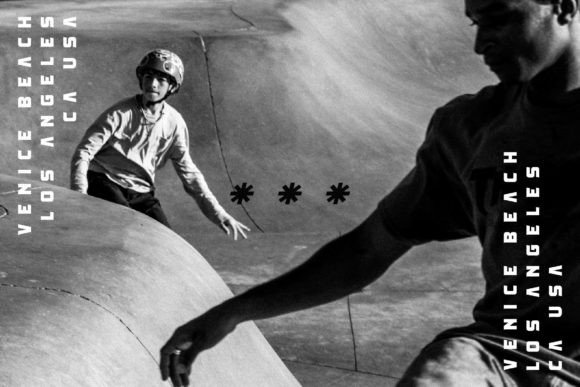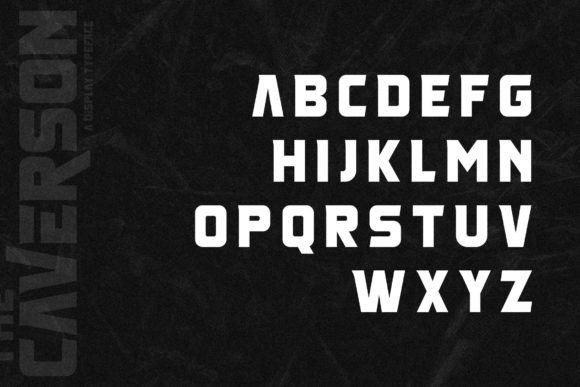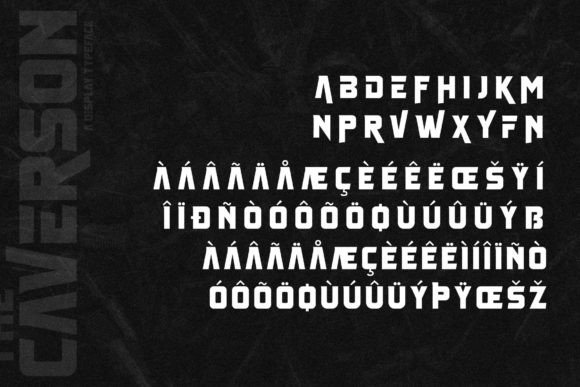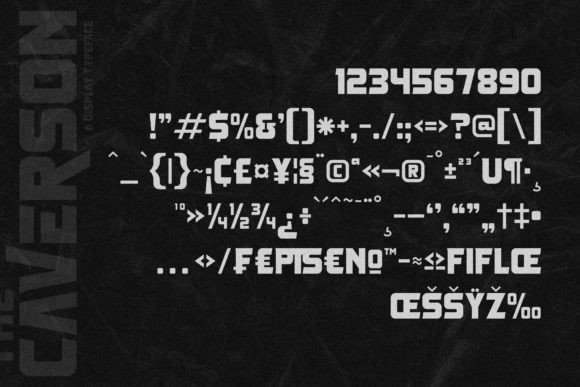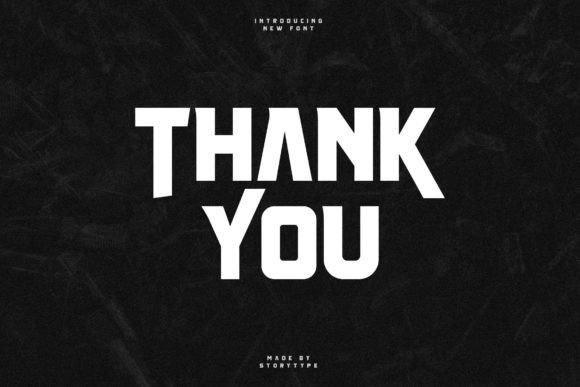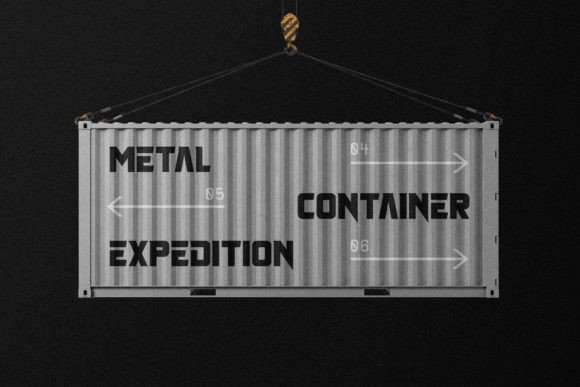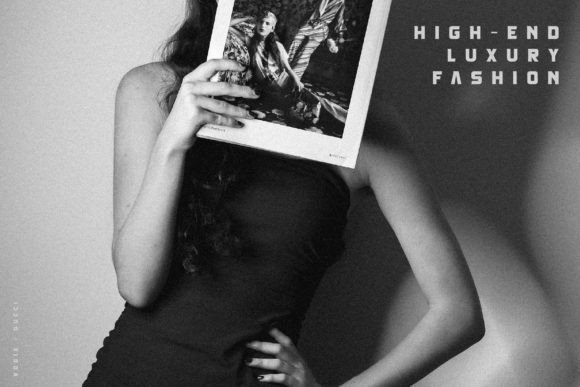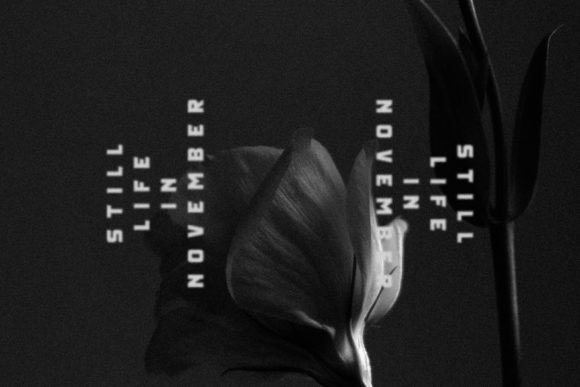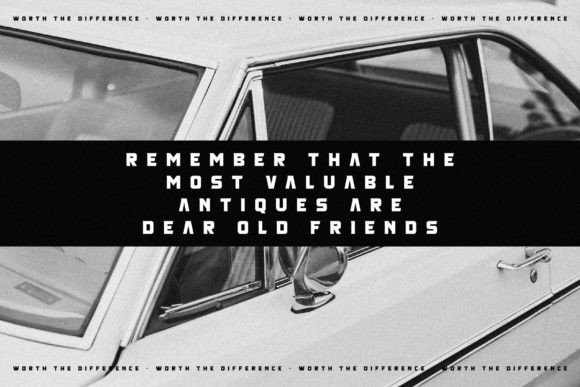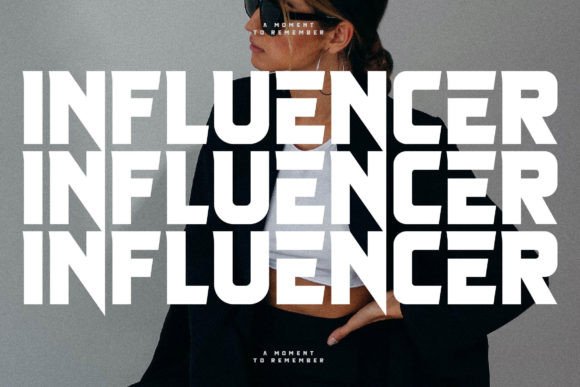
Caverson
Caverson: A Modern and Classy Slab Serif Font
Caverson is a modern and classy slab serif font that combines unique style with fancy elegance. This versatile typeface is perfect for luxury applications, from fashion brands to movie titles.
Key Features of Caverson
• Modern Design: Offers contemporary appeal with refined elements.
• Classy Style: Features sophisticated letterforms.
• Unique Character: Brings distinctive personality to designs.
• Versatile Application: Adapts well to numerous design contexts.
Best Uses for Caverson
Thanks to its elegant characteristics, Caverson works especially well for:
When using Caverson in your designs, keep these tips in mind:
• Try it for headlines or display text to showcase its classy style.
• Use different sizes to highlight its modern features.
• Let its unique character enhance luxury projects.
• Take advantage of its versatility for elegant applications.
To sum up, Caverson is an excellent choice for designers seeking a modern and classy slab serif font with a luxury appeal. Its versatility makes it perfect for various elegant projects. Whether you’re creating fashion brands, designing book titles, or developing luxury logos, Caverson offers the perfect blend of contemporary style and timeless sophistication.
Furthermore, Caverson’s distinctive design allows it to shine in contexts where both modernity and elegance are key. For instance, from magazine layouts to clothing labels, this font can elevate your projects with its refined style. Also, its fancy yet readable appearance works particularly well in designs that aim to make a sophisticated impact.
In conclusion, Caverson truly captures the essence of modern luxury in slab serif typography. Its versatility across different applications shows how well it can serve various creative needs. Therefore, for those wanting to add a touch of elegant sophistication to their work, Caverson can enhance any design with its unique style. Ultimately, it’s perfect for designers aiming to make a classy, modern impact across luxury-oriented projects.